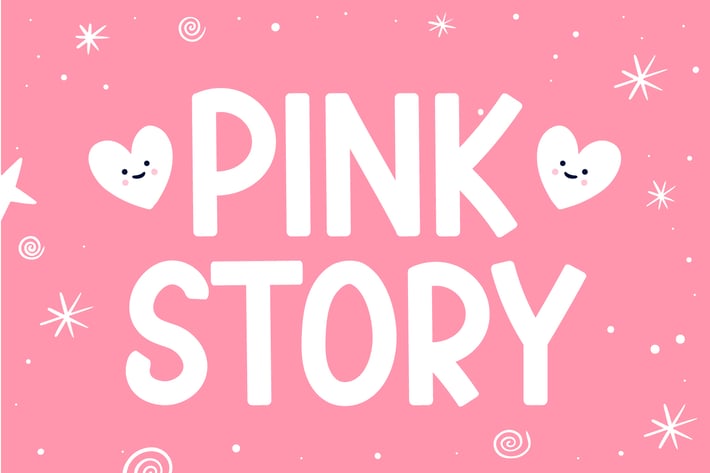
Pink Story - Cute Love Display Font
Introducing Pink Story - Cute Love Display Font
Pink Story is a sweet and friendly display font. Its natural and unique style makes it incredibly fitting for a large pool of designs. The only limit is your imagination!
This font is perfect for quotes, shirt designs, websites, branding, children’s designs, blogs, logos, invitations and more!